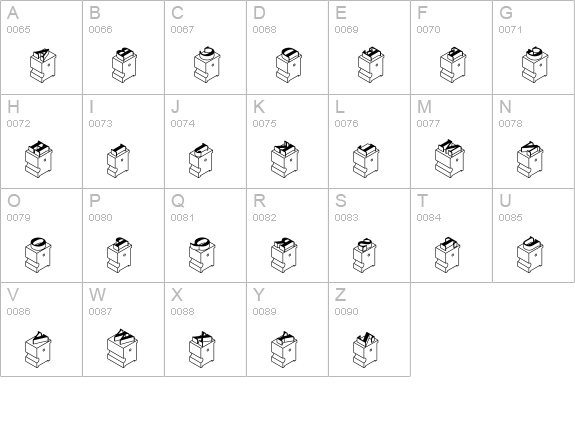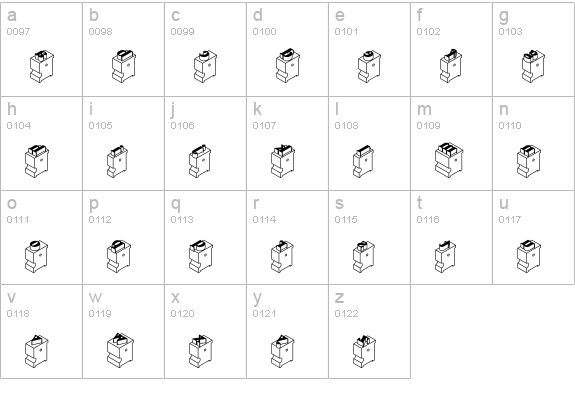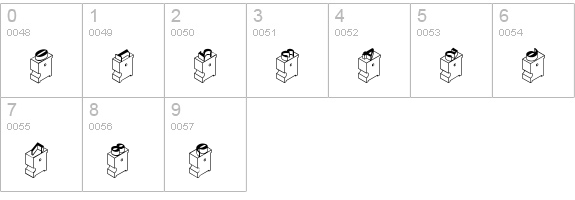
LeadTypeRightInked Font Details
Introducing LeadTypeRightInked font, a bold and dynamic typeface that exudes creativity and originality. This unique font features intricate details and a hand-drawn aesthetic that sets it apart from the rest. LeadTypeRightInked is ideal for projects that require a touch of edginess and personality. This versatile font is perfect for a wide range of design applications, from logos and branding to posters and social media graphics. Its striking presence on the page will captivate viewers and leave a lasting impression. With its distinct style and modern appeal, LeadTypeRightInked is sure to elevate any project to the next level. And the best part? LeadTypeRightInked is available for free download at FontsMarket.com. So go ahead and unleash your creativity with this one-of-a-kind font that will make your designs stand out from the crowd.